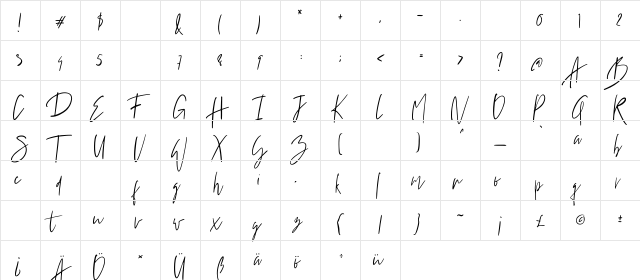
Stadella Regular
Design Context for Stadella Typeface
Stadella is a composed and adaptable typeface that performs quietly and consistently across a wide range of design contexts.